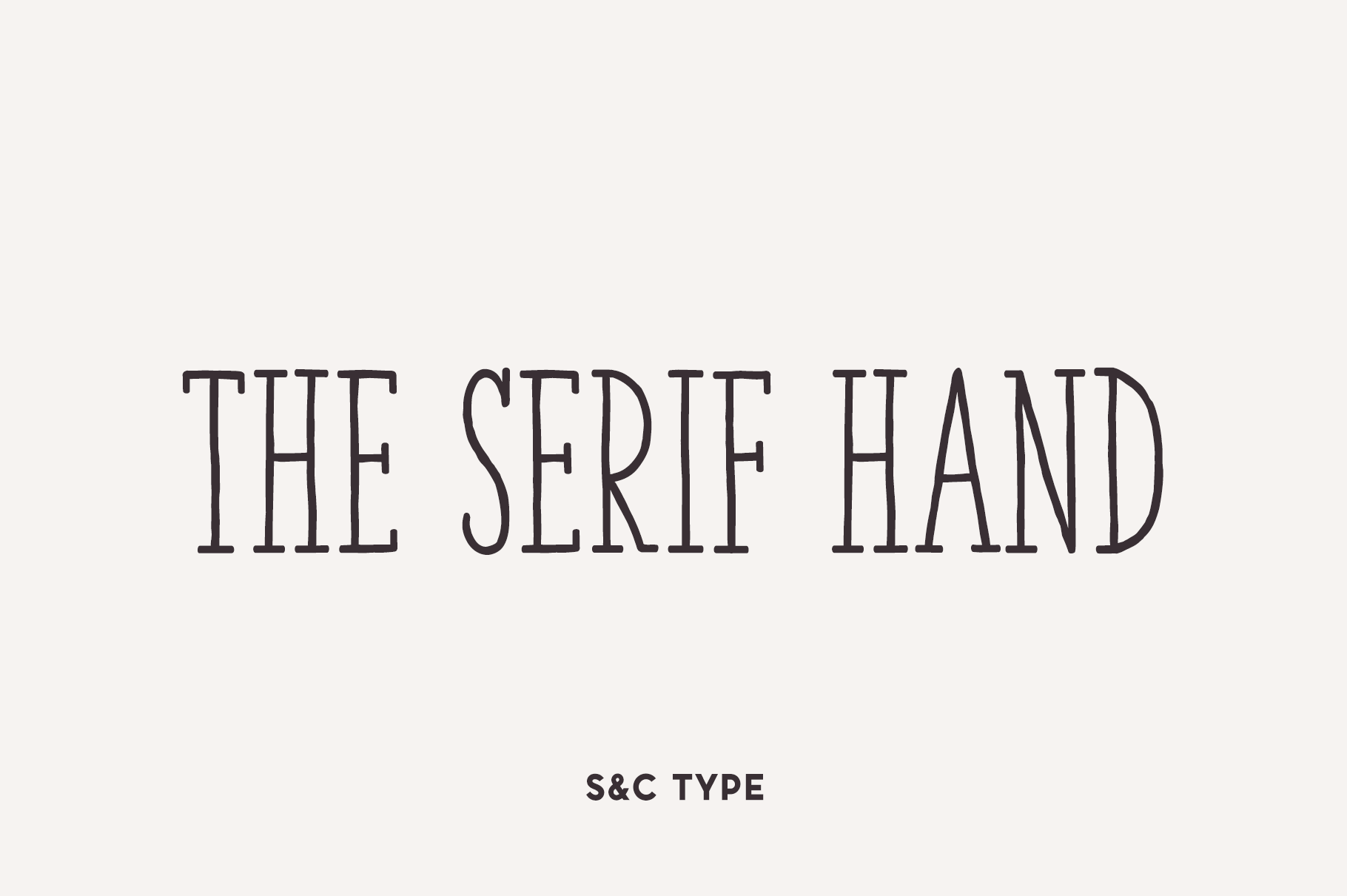
The Serif Hand Font Collection
The Serif Hand is a handwritten font designed by Fanny Coulez and Julien Saurin in Paris. We wanted to create the most generic, readable and balanced serif handwritten font, to work well in every kind of design.
It’s an all-caps font with 5 finely balanced weights with alternates: all the uppercase letters are a bit different from the lowercase letters. We also designed a playful dotted weight, to add a fancy touch if needed.